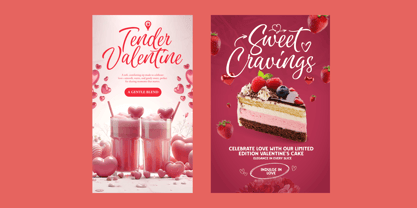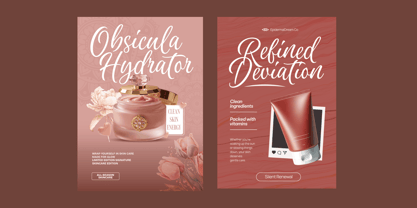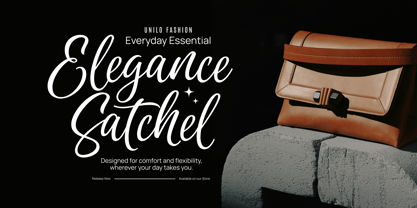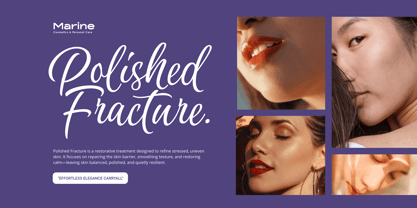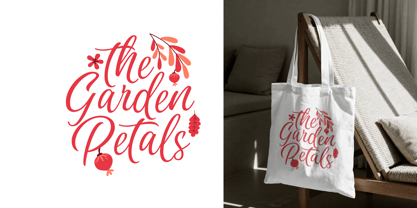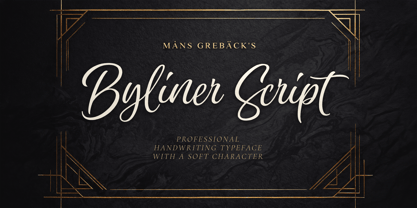
Byliner Script
Byliner Script is a flowing handwritten typeface with a calm, confident rhythm. The letters are drawn with a steady hand and a natural slant, balancing smooth curves with slightly firm strokes. It feels casual without being messy, and expressive without becoming loud. Capitals are open and friendly, while the lowercase keeps a consistent movement that makes longer words easy to read. The script has a relaxed elegance, like a practiced signature written without rush. The font is built with advanced functionality and guaranteed top-notch quality, containing stylistic and contextual alternates, ligatures and more automatic and manual features; all to give you full control and customizability. It has extensive lingual support, covering all Latin-based languages, from North Europa to South Africa, from America to South-East Asia. It contains all characters and symbols you'll ever need, including all punctuation and numbers. Designed by Mans Greback, Byliner Script was created with a focus on natural handwriting rather than decoration. The goal was to capture a smooth writing flow that feels personal and familiar, while still being dependable and clean in everyday use.
Måns Grebäck is a type designer and font creator specializing in script typography, but with a portfolio containing a vast selection of styles. Typefaces from Måns Grebäck are used as company and product logotypes, as well as headlines and in advertisement by a wide range of industries world-wide. Founded by Måns Grebäck in 2010, Mans Greback AB originally went under the name of Mawns Fonts and later Aring Typeface AB. While the foundry has its seat Örebro, Sweden, Måns also lives in Portugal. The Premium Foundry page can be viewed Here.